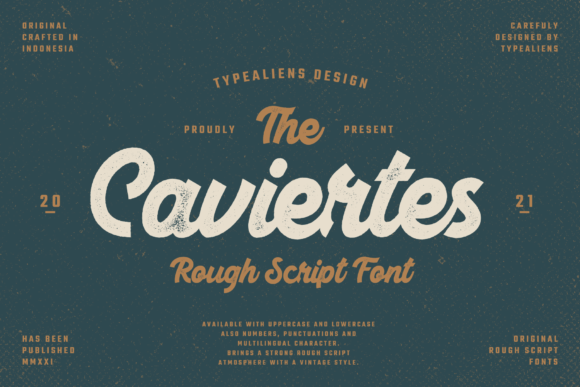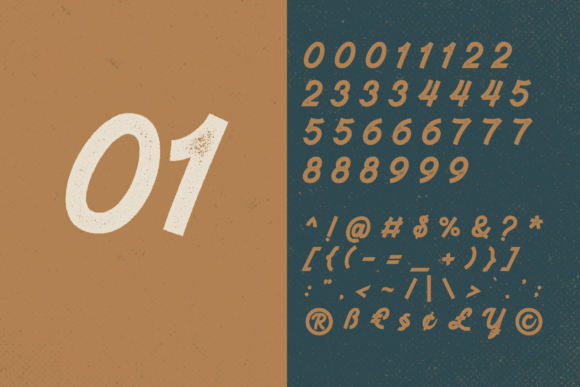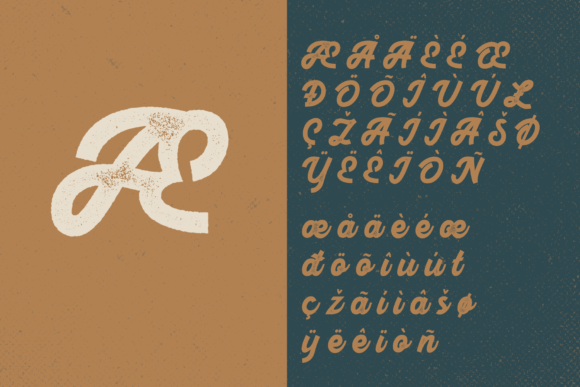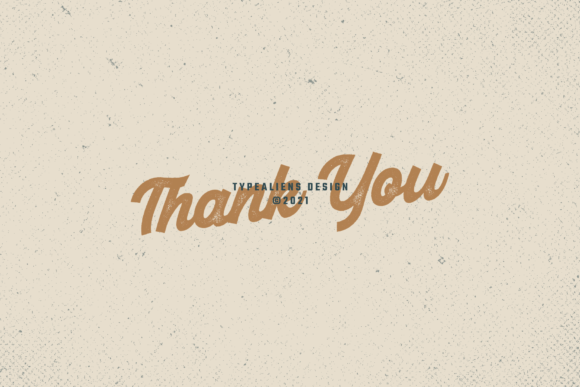
About Caviertes Font
Caviertes is a gorgeous and bold handwritten font, crafted to give your headlines and logotype projects a stylish touch. This font reads as strong, confident, and dynamic and can add tons of nostalgic character to your designs.